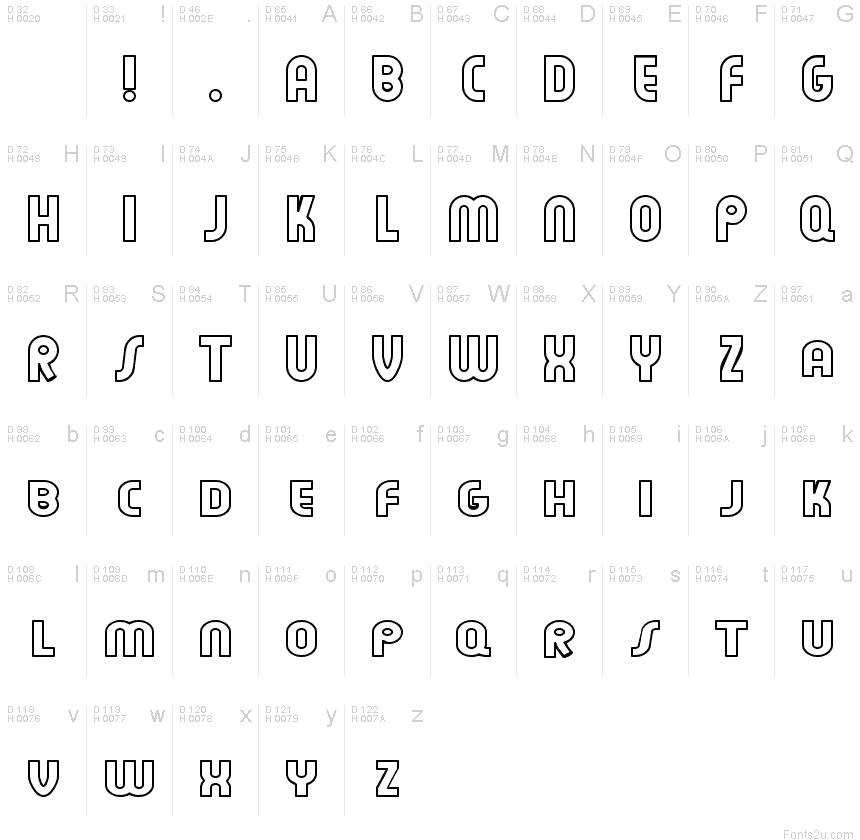
Feuerfeste Outline Normal
Based on the text from a german coffee box. Later I noticed that there already was a font looking like this, but I don't know the name of it. Please tell me at spark@hem.utfors.se